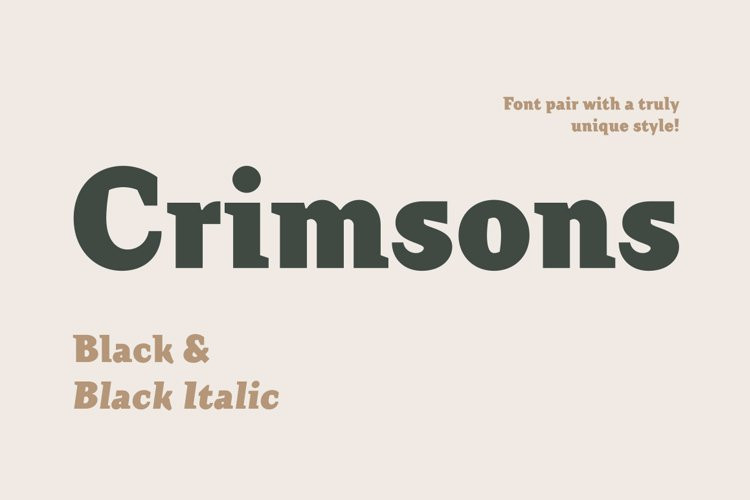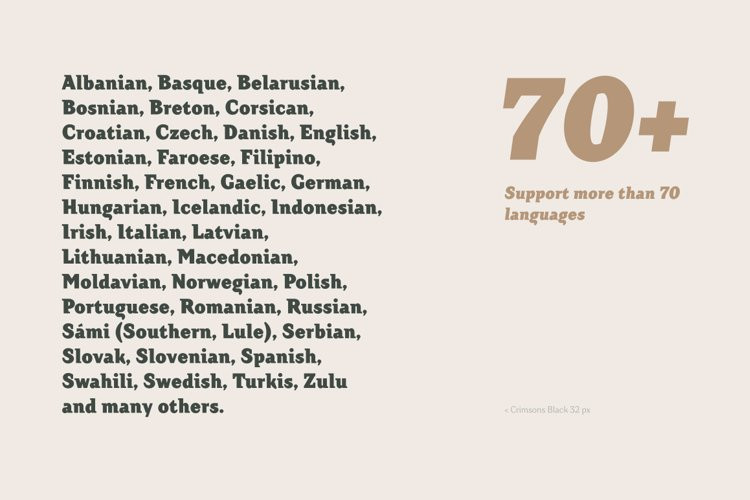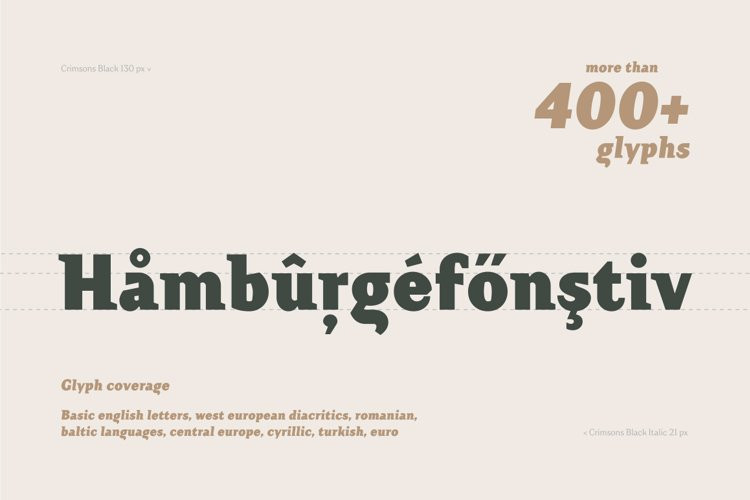
Crimsons Font
Crimsons Black & Crimsons Black Italic is an excellent font pair for the most refined design.
Sometimes we only need a few faces to make our creative ideas come to live. For this specific purpose we’ve split some of our popular font families into all-sufficient font pairs.
Crimsons